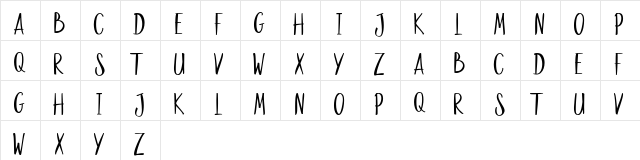
Goodies Alt2 Regular
Design Context for Goodies Alt2 Typeface
Goodies Alt2 takes a measured approach to typography — its balanced proportions and neutral character make it a reliable workhorse for both digital and print work.